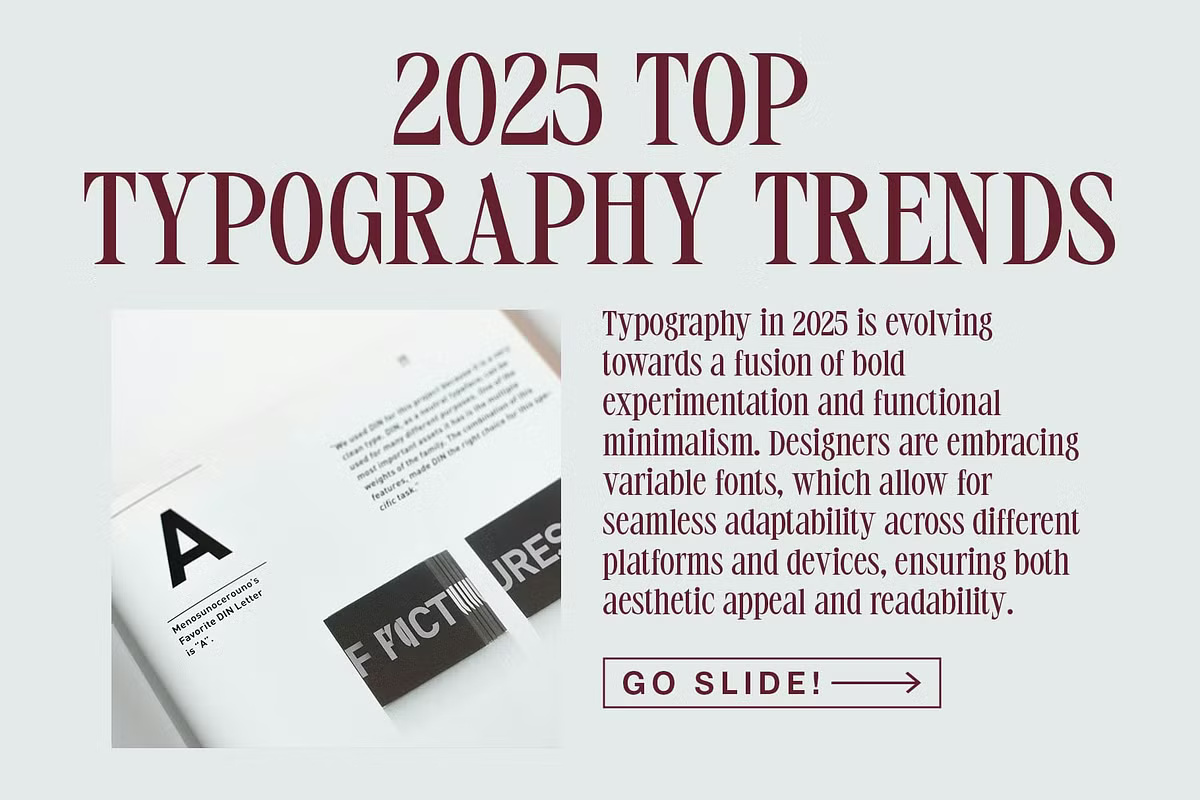
CS Adley Font
CS Adley is a semi-condensed serif font that blends classic elegance with modern refinement. Its thin, elongated serifs and proportions reminiscent of Didot give it a sophisticated and stylish presence. The design is smooth yet detailed, striking a perfect balance between minimalism and intricacy—ideal for branding, editorial layouts, and premium packaging.
CS Adley is a natural fit for luxury brands, high-end fashion magazines, and editorial projects, exuding exclusivity and sophistication. Its high contrast and delicate details make a strong visual impact, making it especially well-suited for logos, advertising, corporate branding, and upscale design work.
CS Adley Serif Font